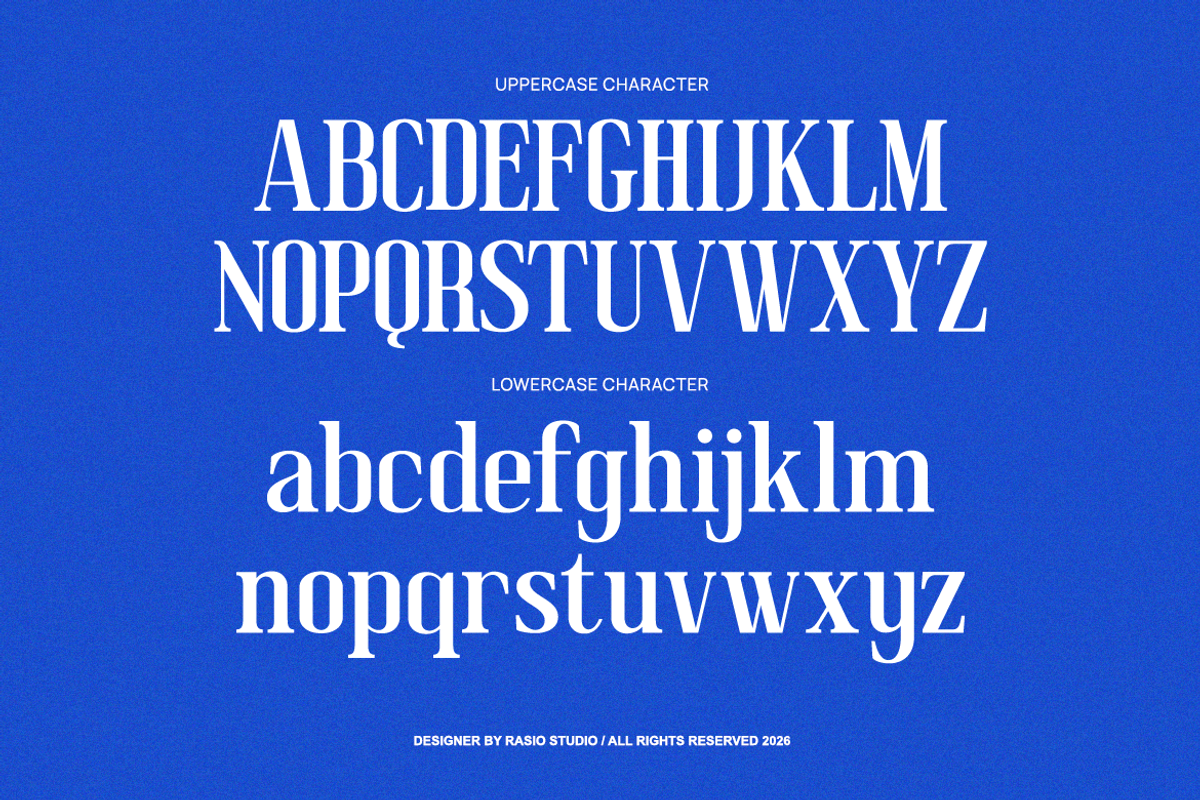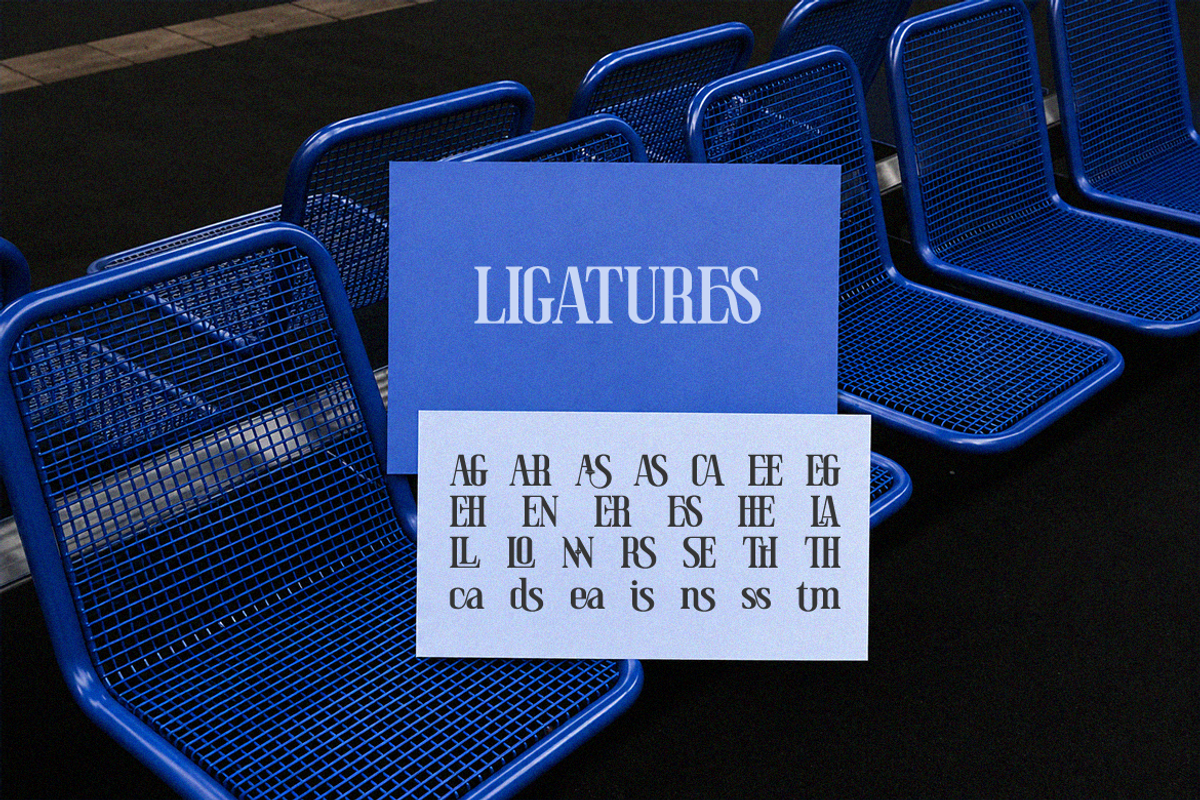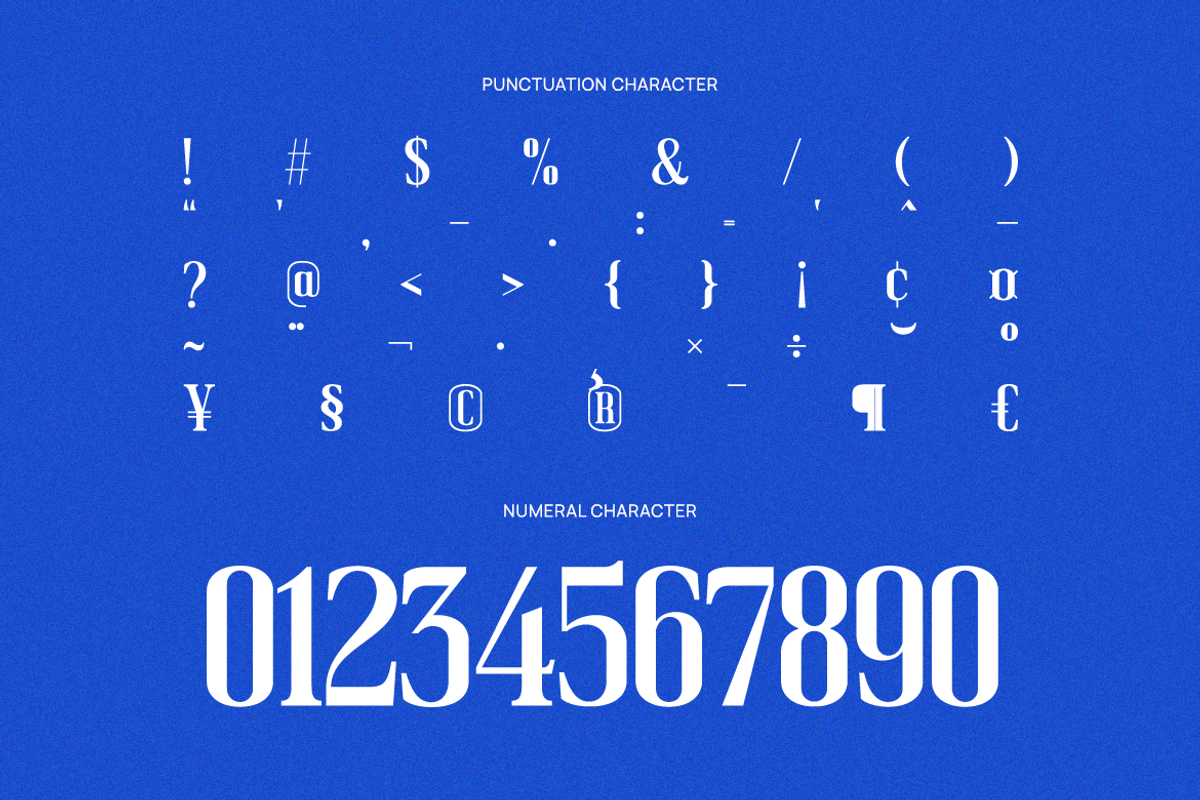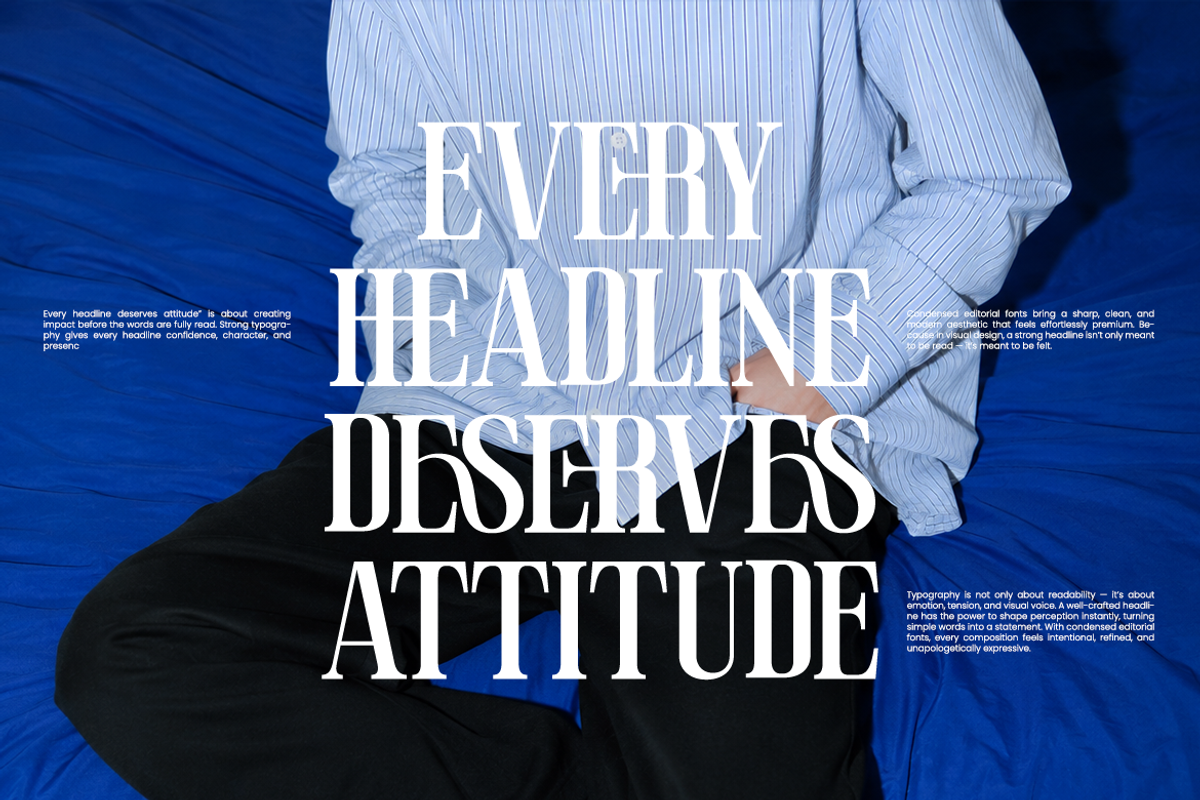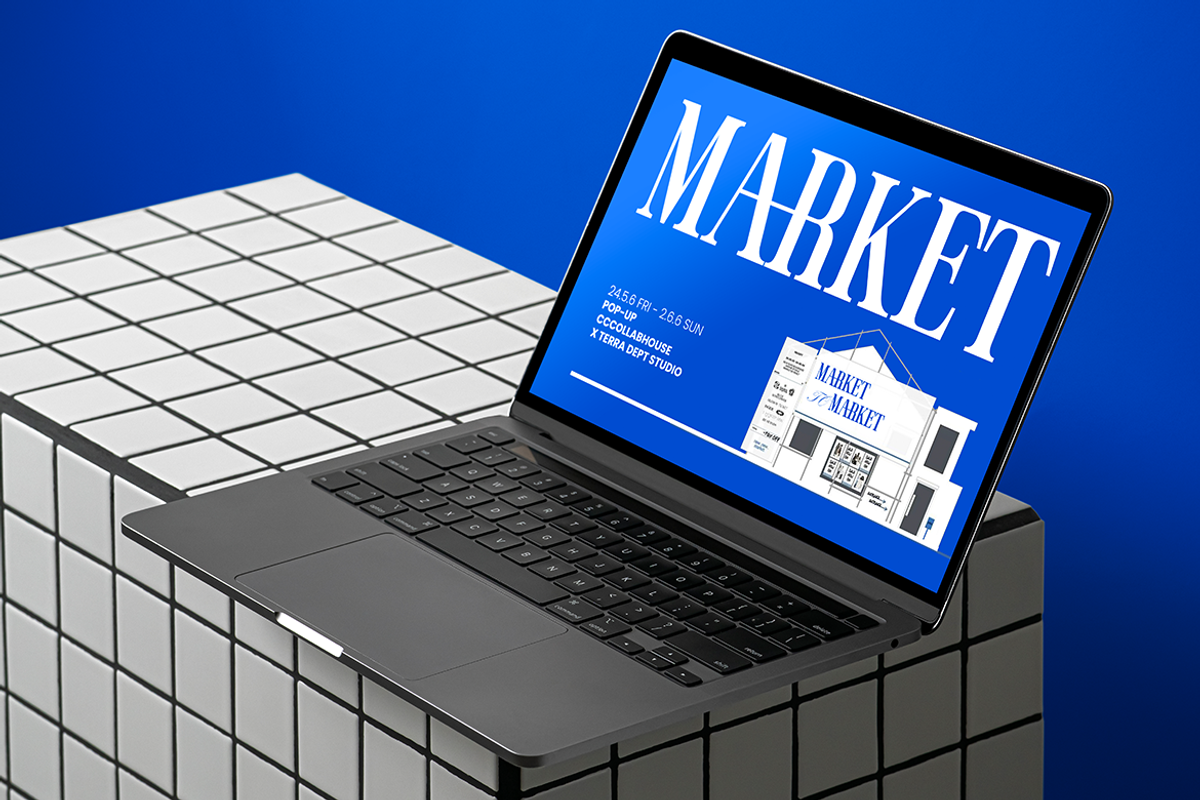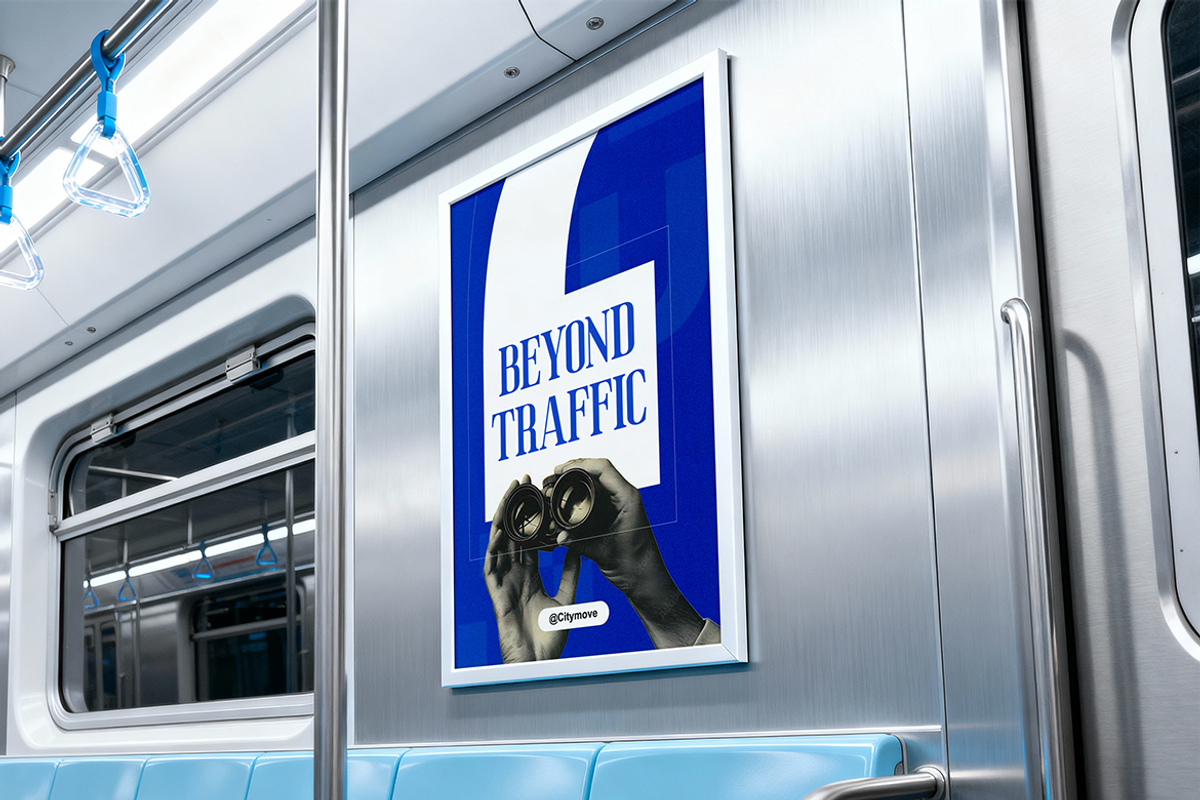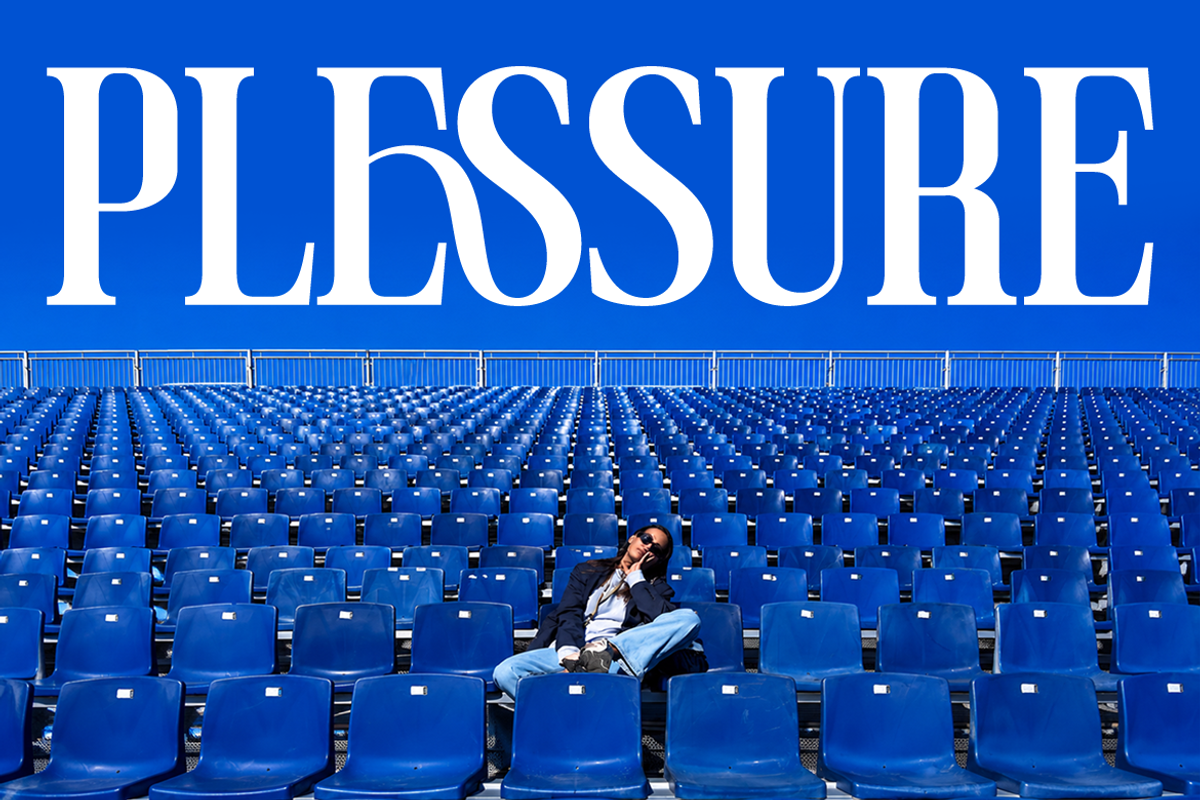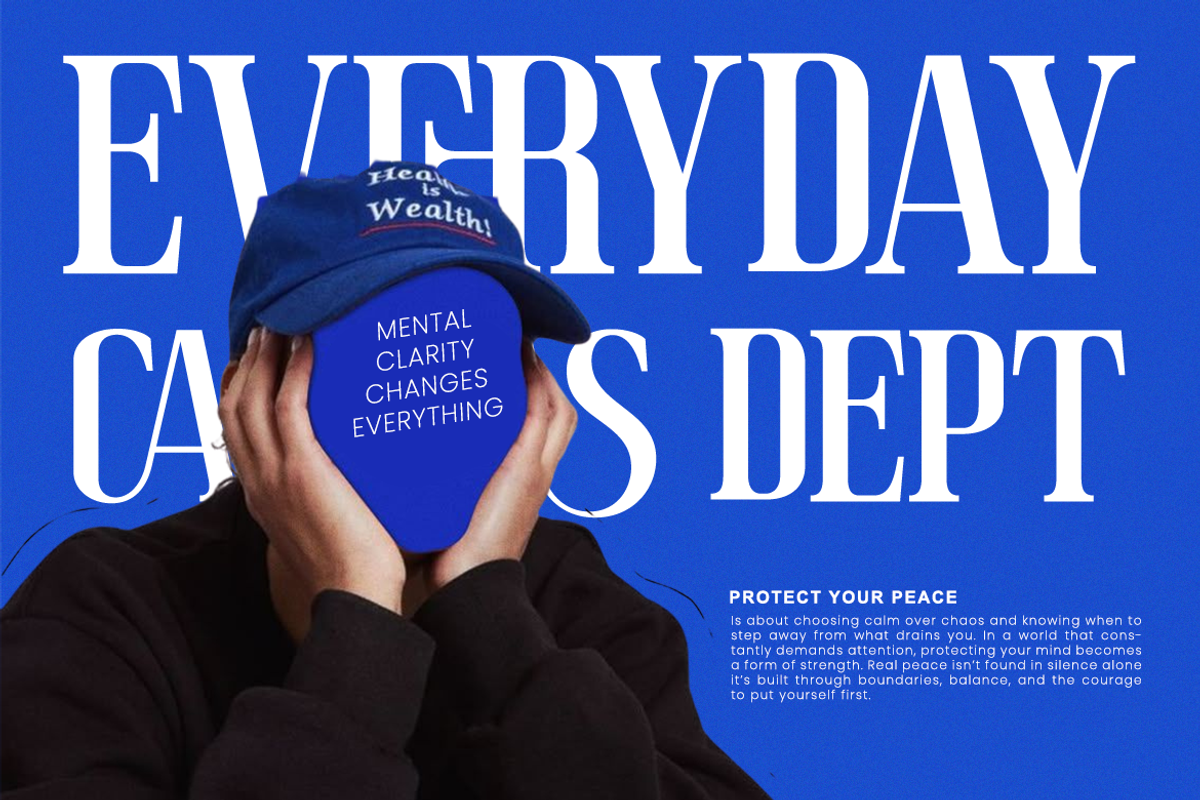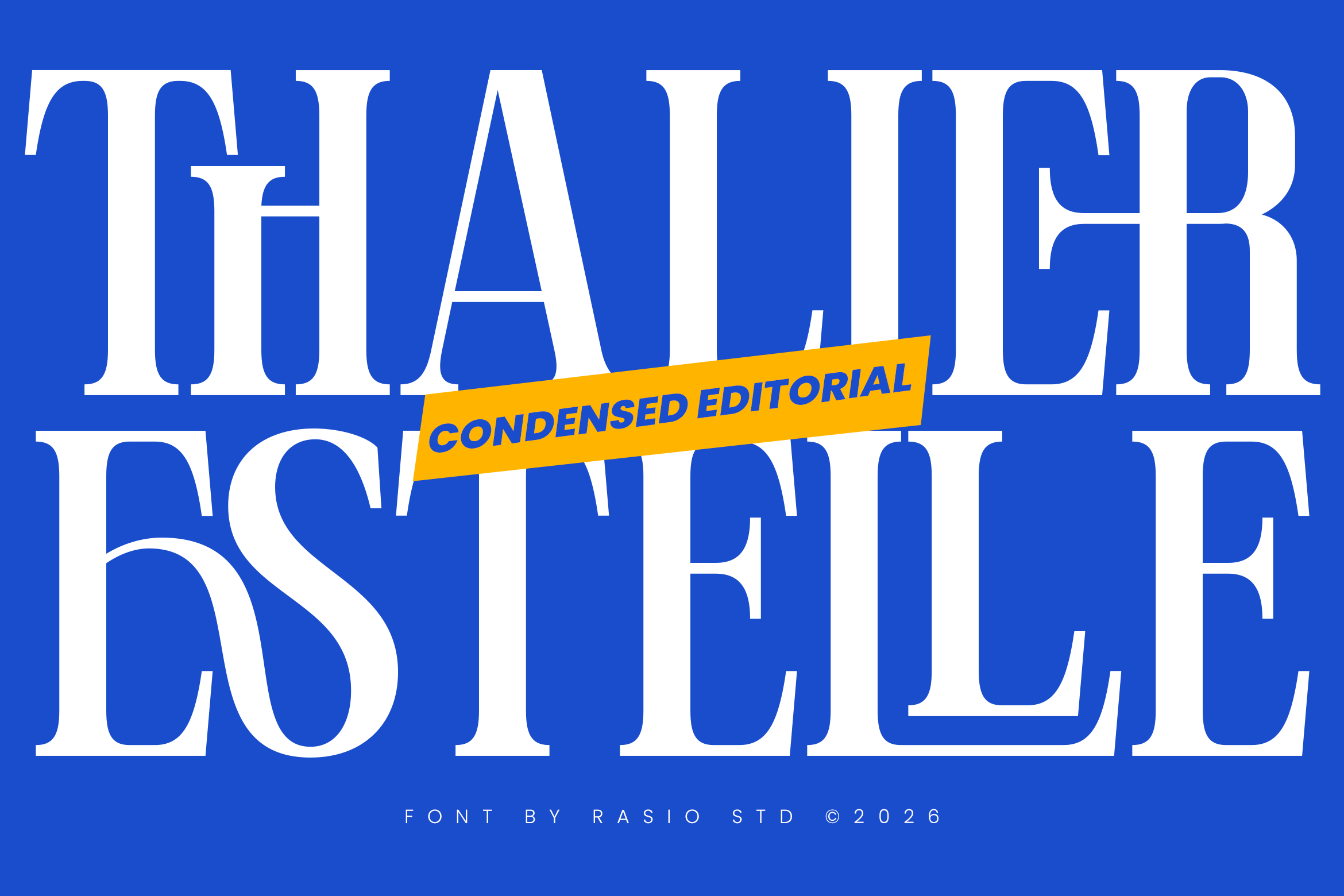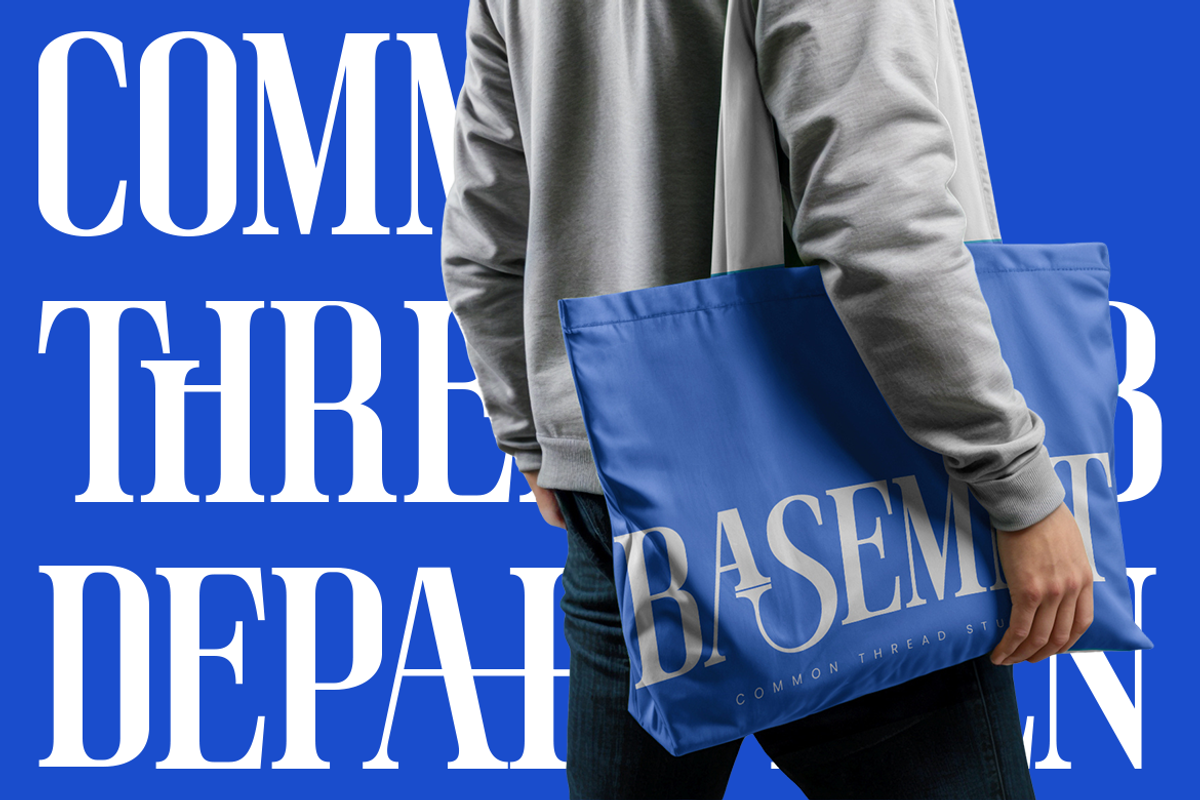
Thalier Estelle Condensed Font
Thalier Estelle Condensed Editorial Font showcases a modern editorial serif style with tall proportions, refined contrast, and elegant condensed letterforms. The typeface features uppercase and lowercase characters, numerals, punctuation, and stylish editorial aesthetics crafted for impactful headlines and luxury visual compositions. Its clean spacing and dramatic serif structure create a sophisticated presence suitable for branding, magazines, fashion campaigns, posters, and premium typography layouts.
Relevance & Use Cases** **is highly relevant for luxury branding, editorial publishing, fashion campaigns, beauty product packaging, modern advertising, and premium visual identity projects. Its condensed serif style delivers strong visual impact for headlines, magazine covers, posters, social media branding, website hero sections, and sophisticated logo presentations.
Elegant condensed serif structure with tall proportional letterforms
High contrast strokes creating refined editorial aesthetics
Sharp tapered serifs combined with sophisticated modern styling
Vertical emphasis and narrow spacing for dramatic headline impact
Luxury-inspired typography balance with clean contemporary rhythm
Luxury fashion branding and premium editorial headline designs
Magazine covers, modern publishing layouts, and stylish typography posters
Elegant logo design projects requiring tall condensed serif aesthetics
High-end packaging, cosmetic branding, and boutique product visuals
Social media campaigns and advertising materials with sophisticated visual appeal
Screen-optimized kerning for responsive web design
Supports numerals, punctuation, and extensive symbol set